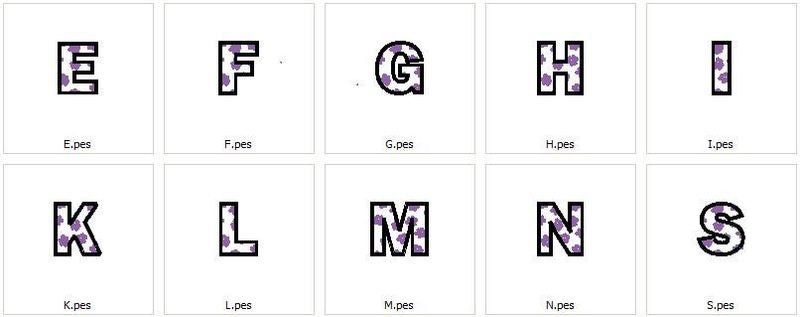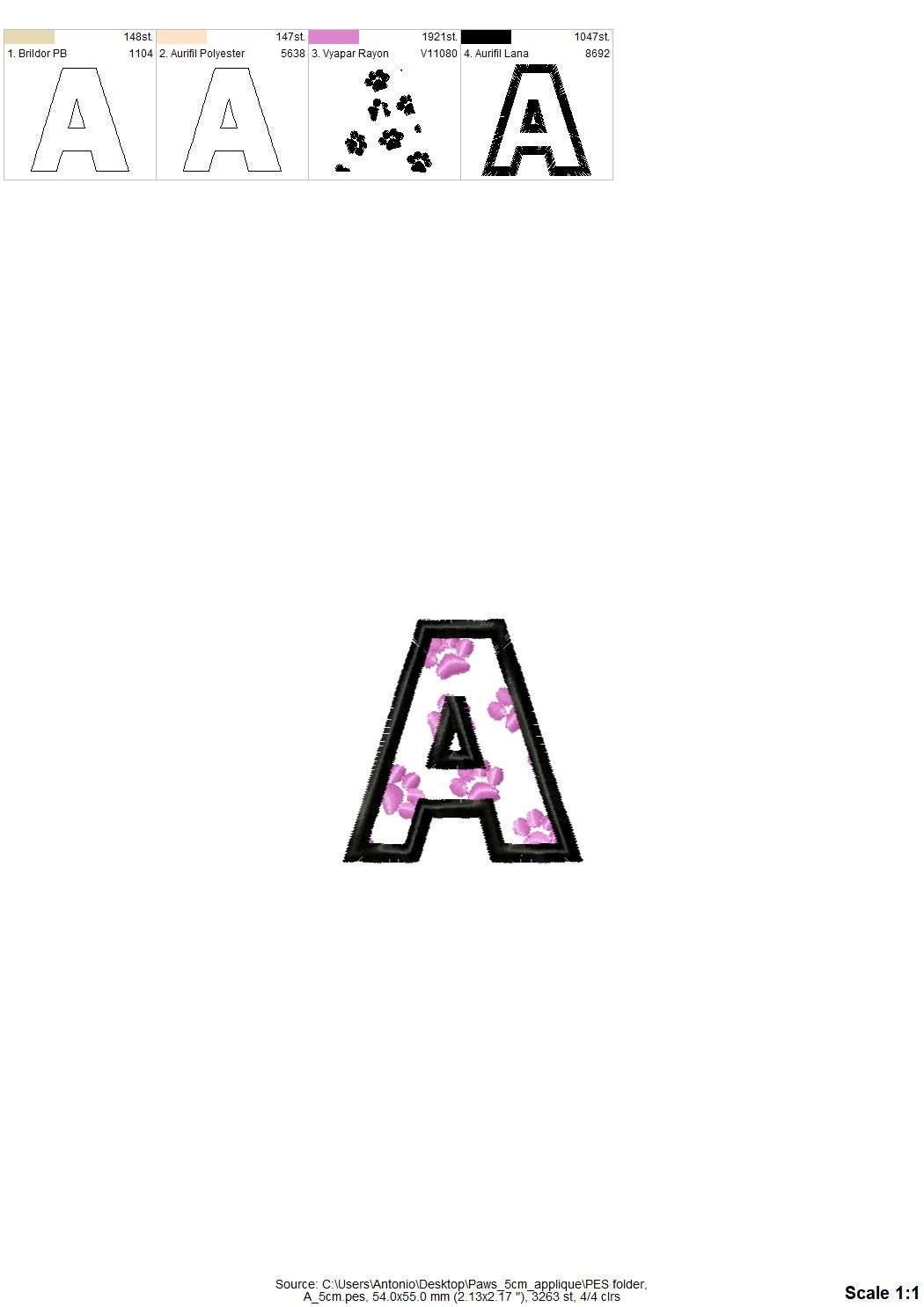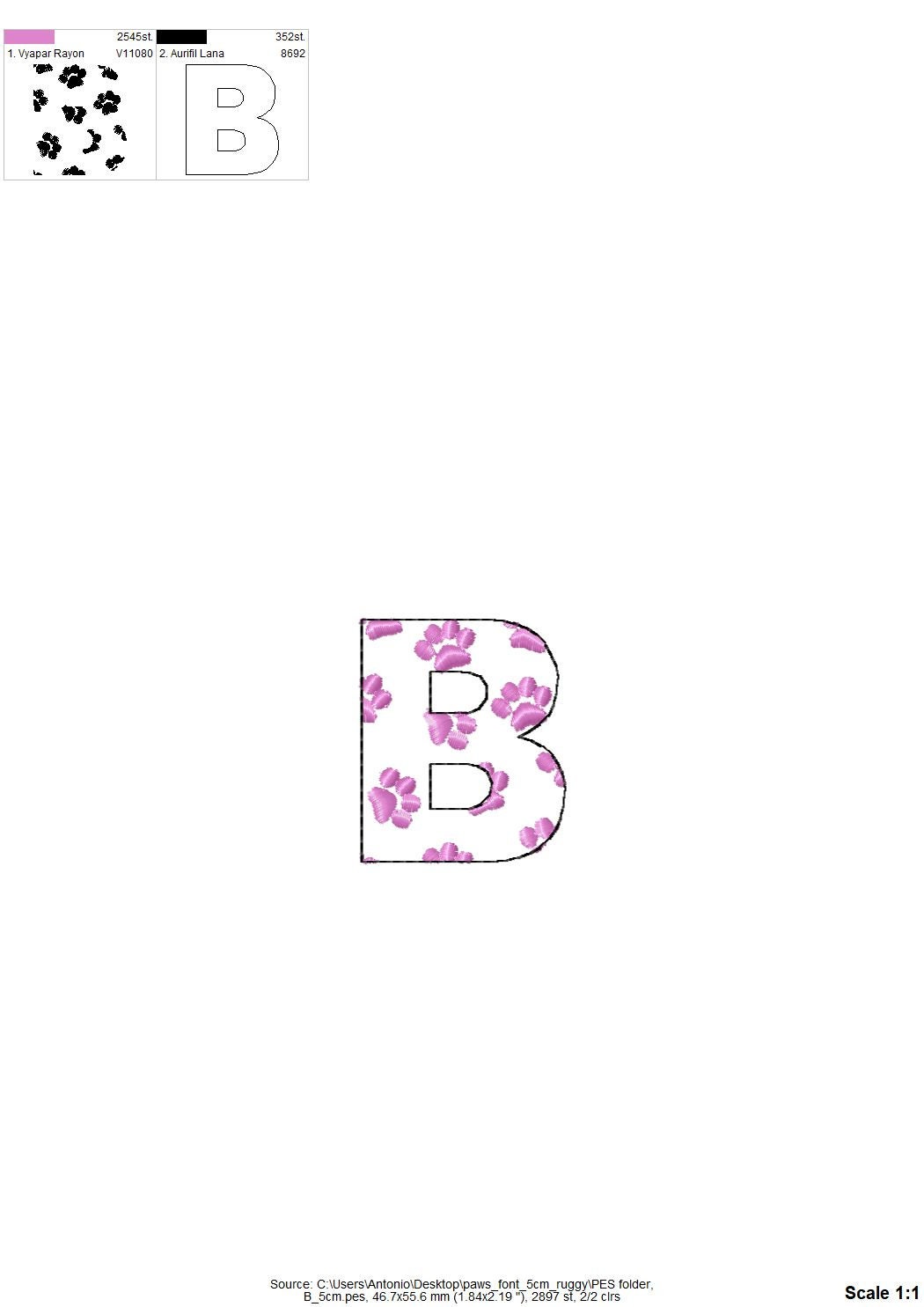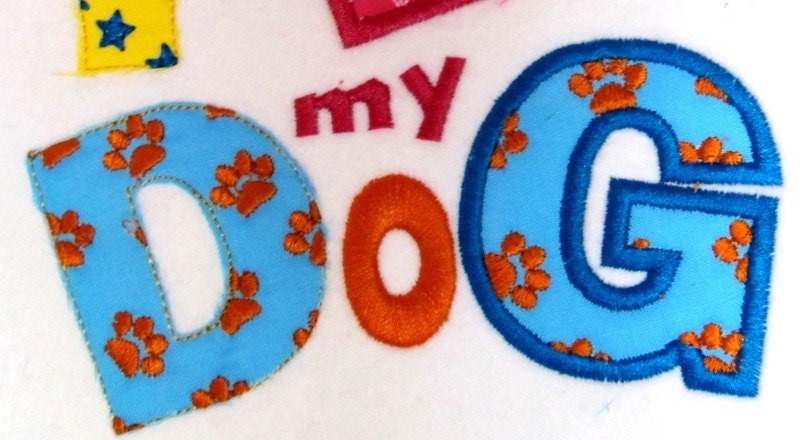
The paw print is a part of the embroidery. Awesome effect!
Entire alphabet capital letters A-Z, and numbers 0-9.
Included 2 styles:
1. raggedy edge as shown on the first photo, with a thin outline (letter D)
2. usual applique style, also shown on the photo, with a wide satin stitch outline (letter G)